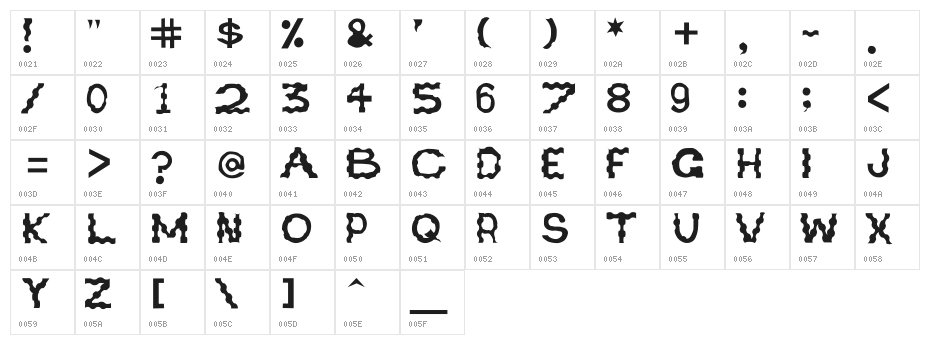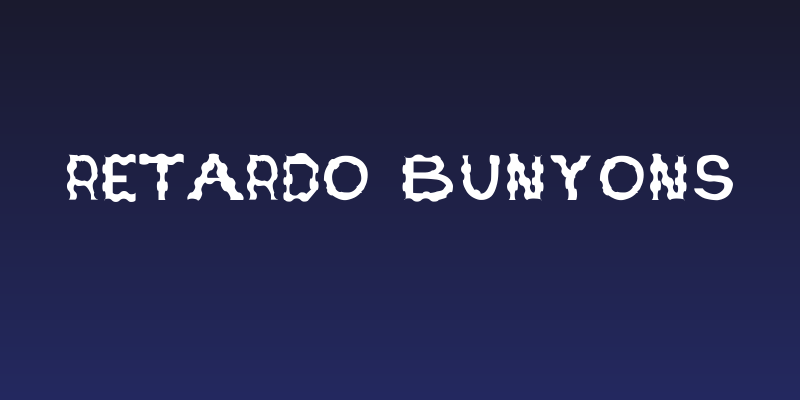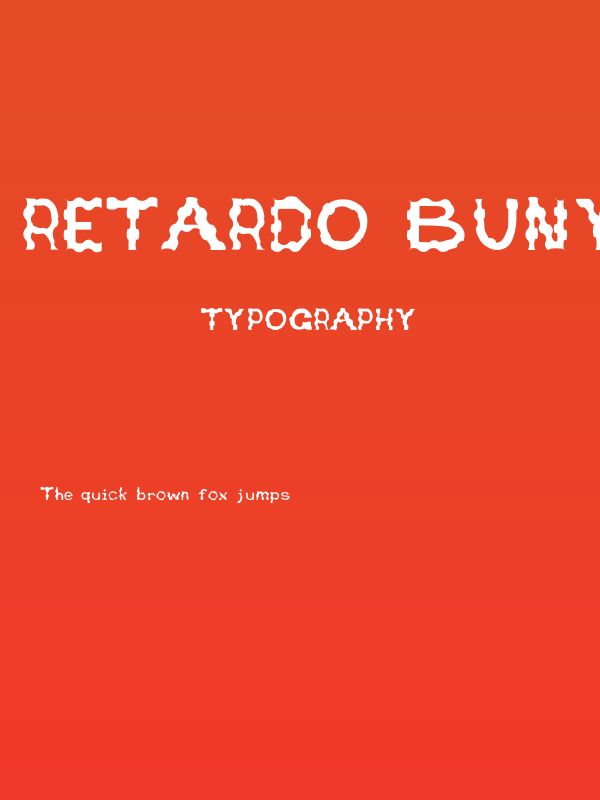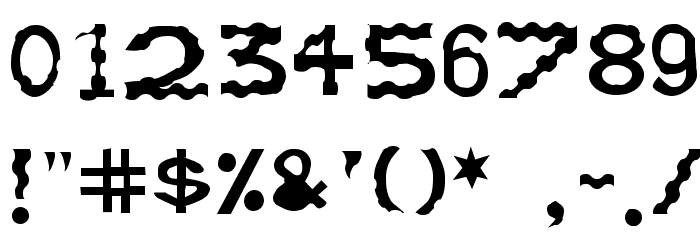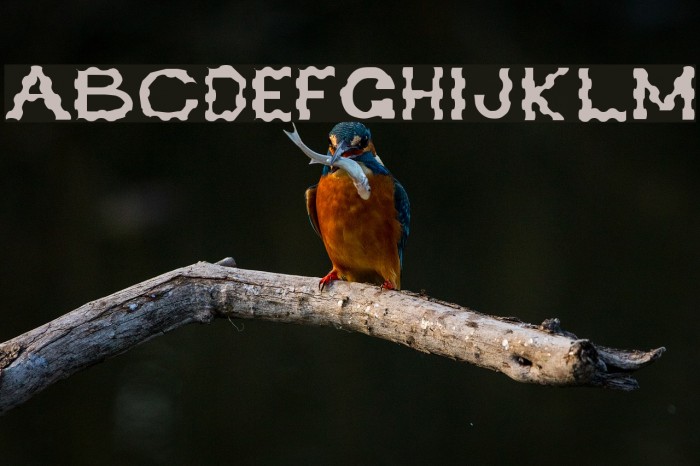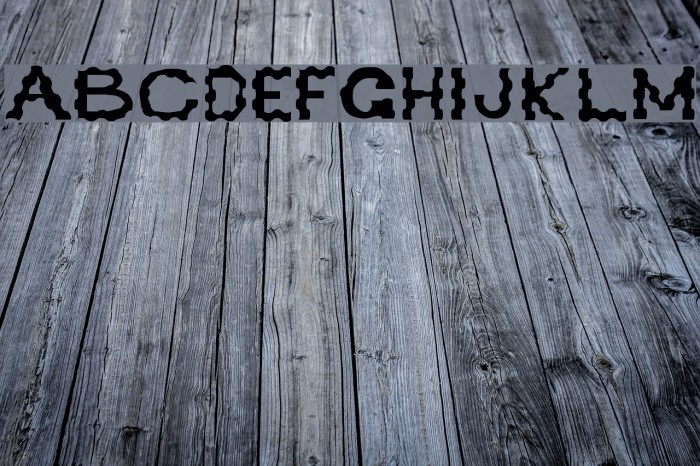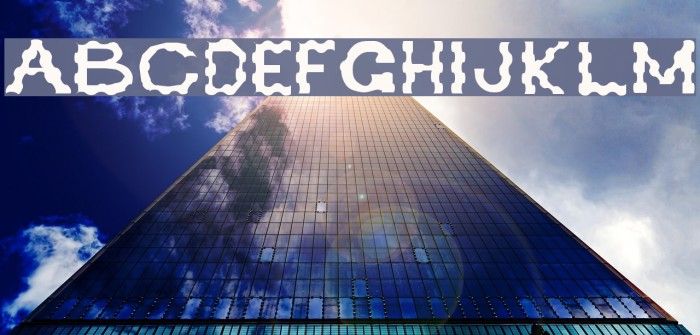
Retardo Bunyons Font
Retardo Bunyons Description
This font features a unique and playful design with irregular, wavy edges that give it a whimsical and slightly chaotic appearance. The characters are bold and have a strong presence, making them stand out in any design. The uppercase and lowercase letters maintain a consistent style, with the uppercase being slightly more pronounced. The numbers and special characters follow the same playful theme, adding to the font's overall quirky and fun aesthetic. This font is perfect for projects that require a touch of humor or creativity, such as children's books, comic strips, or playful branding.
| Overall Style | Playful, Quirky |
| Proposed Projects | Ideal for children's books, comic strips, playful branding, and creative designs. |